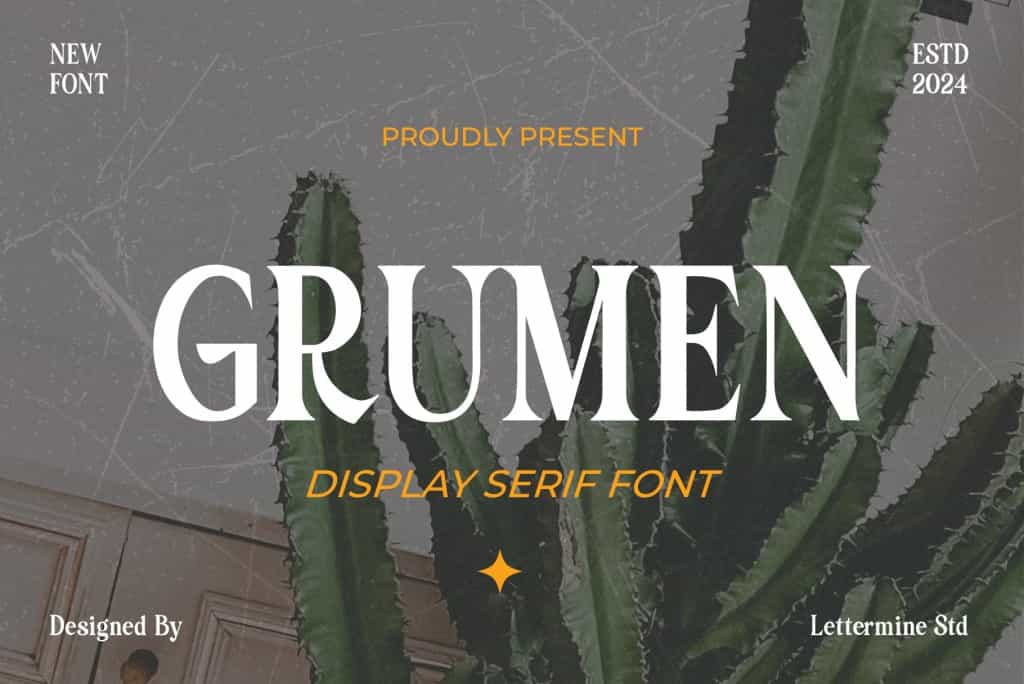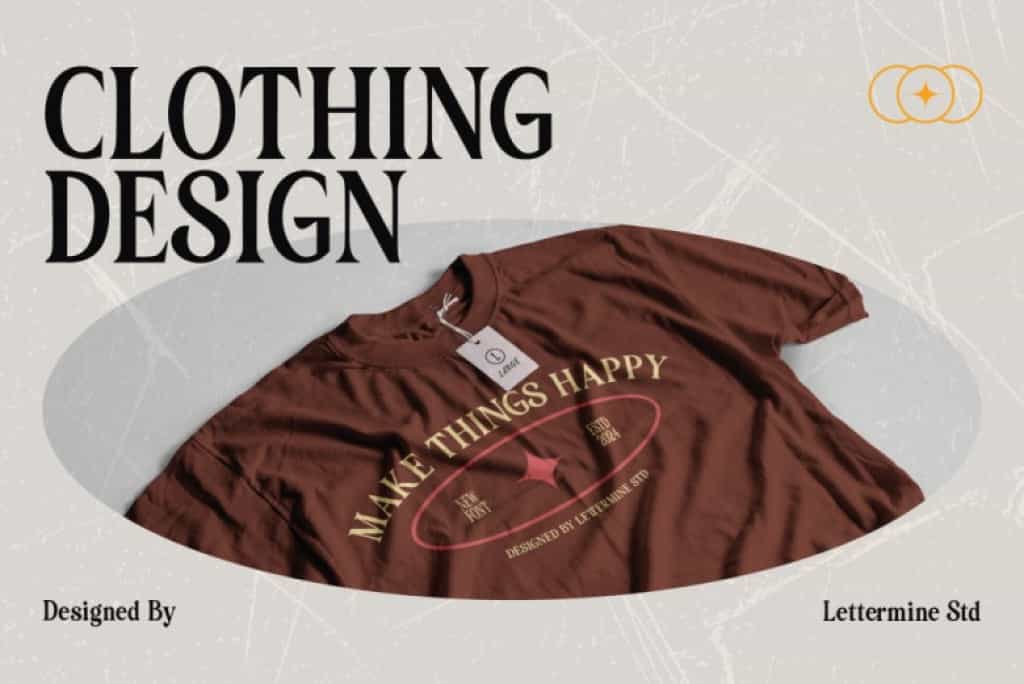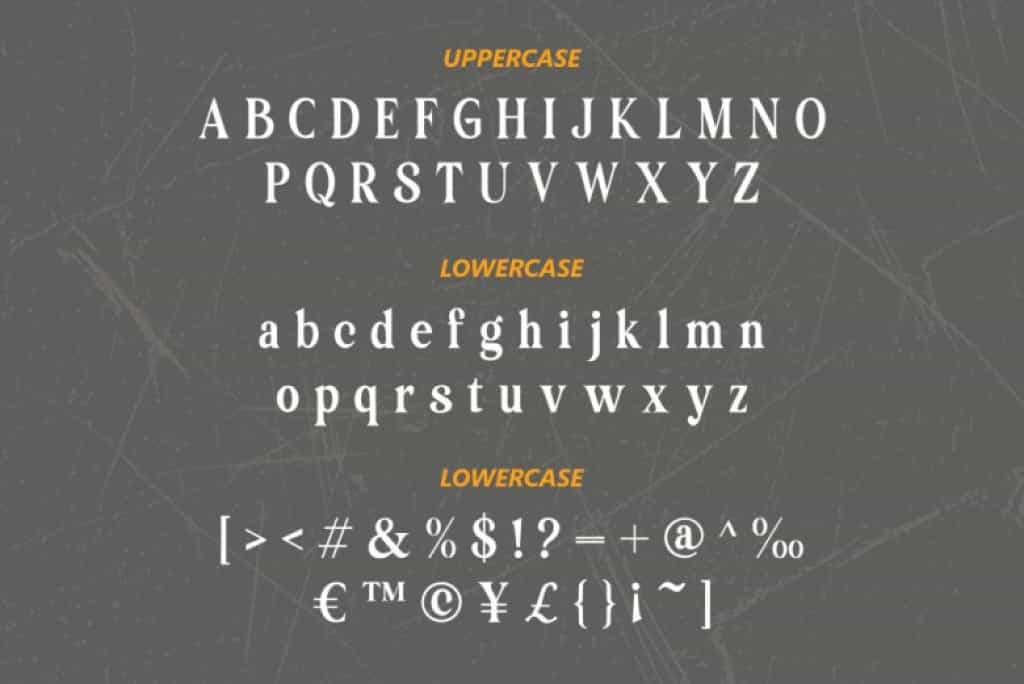
Grumen is an elegant serif typeface designed to add the perfect finishing touches to your designs. Boasting smooth character ligatures, alternate characters and support for multiple languages GRUMEN offers flexibility for varied design needs.